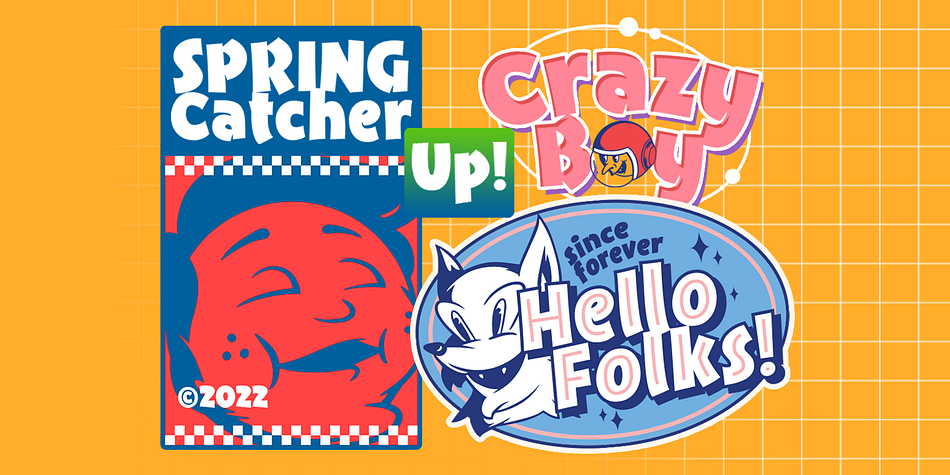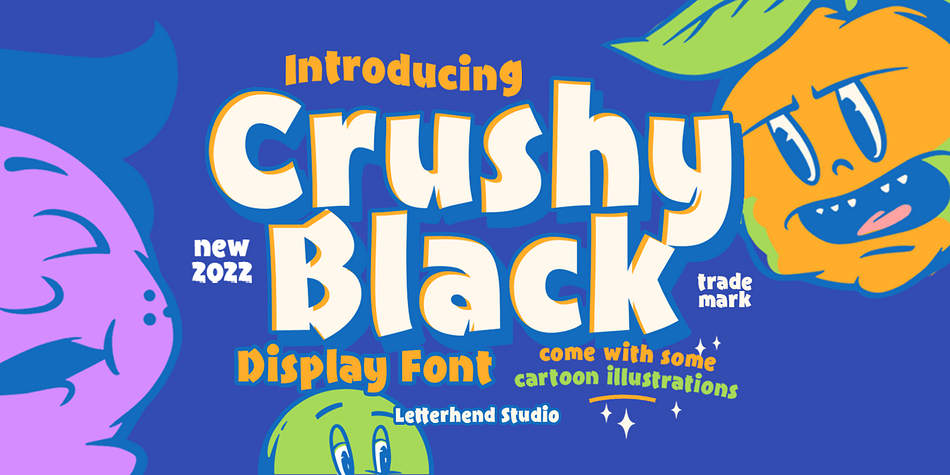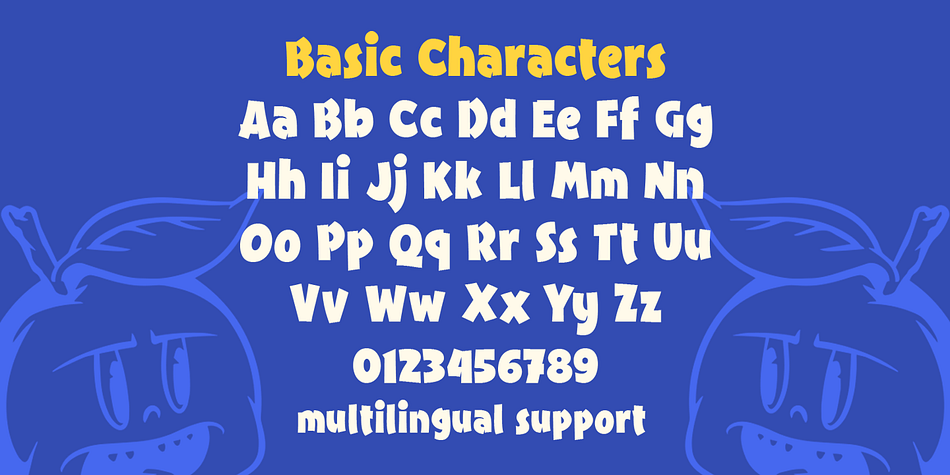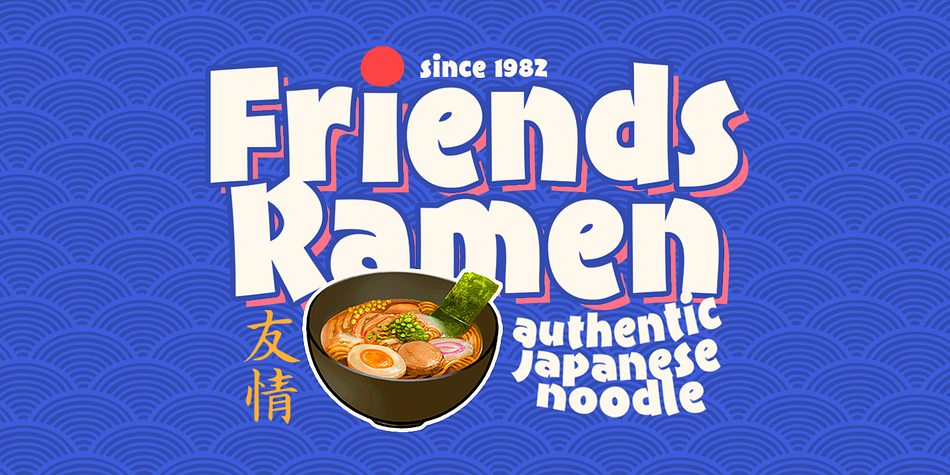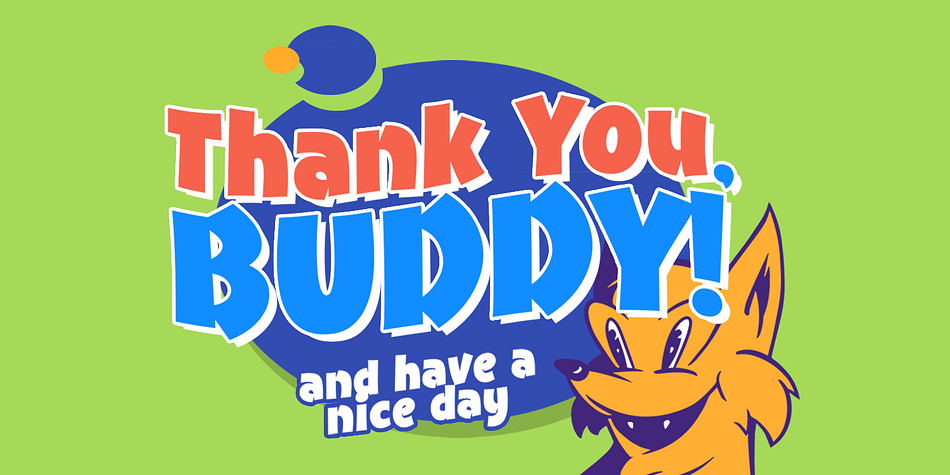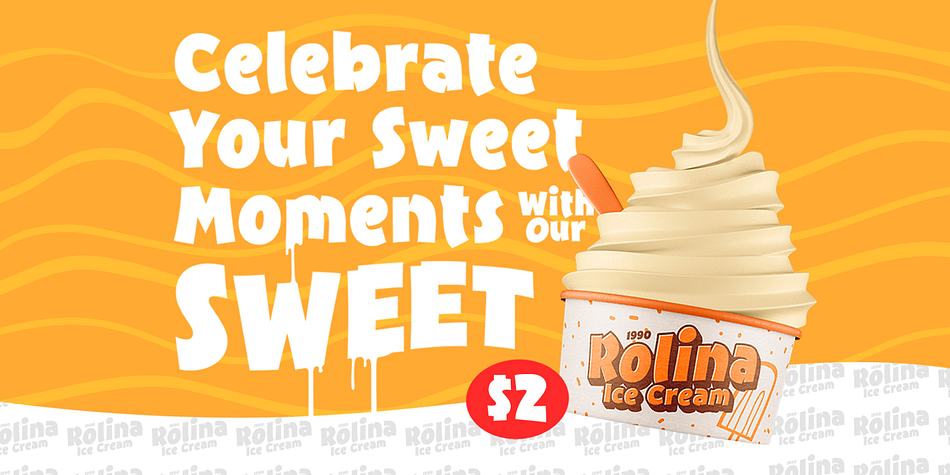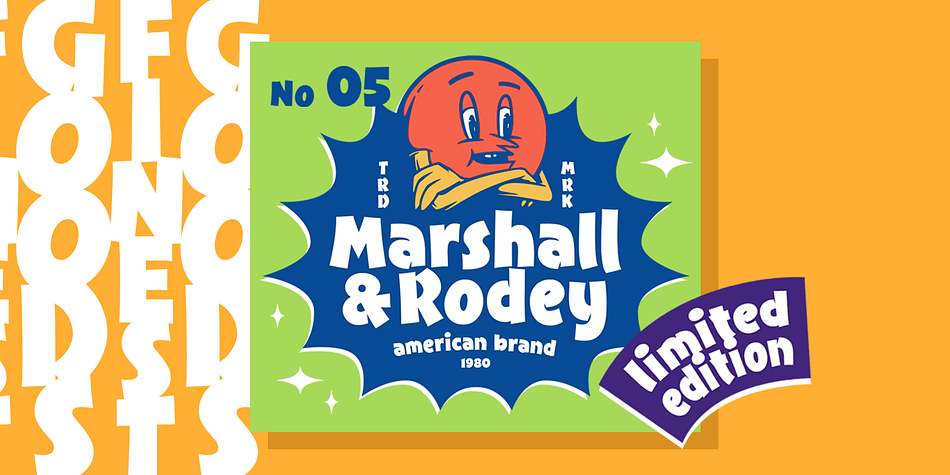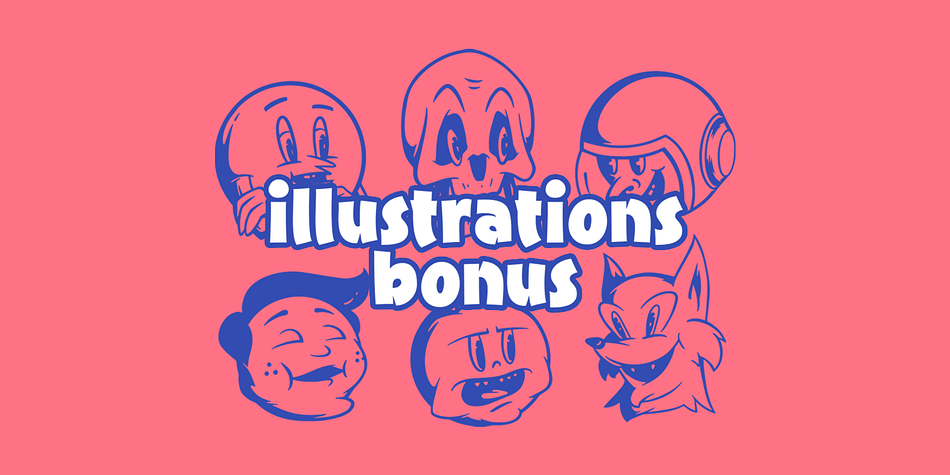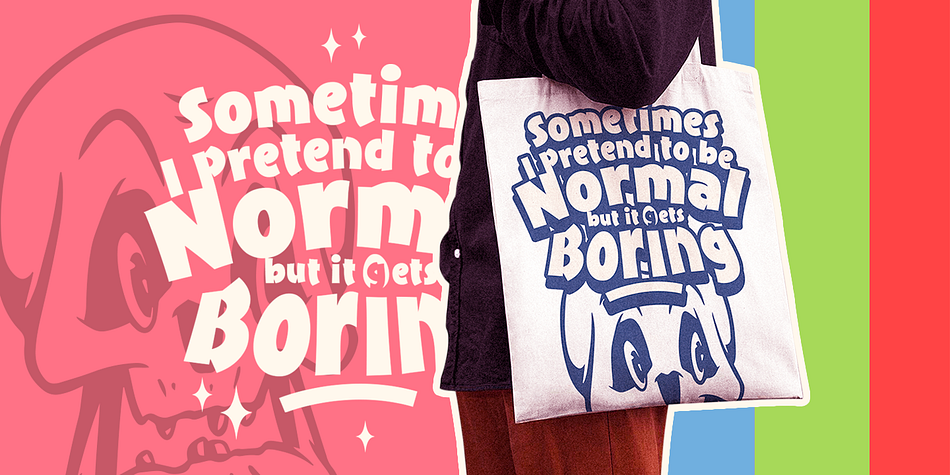
Designed by Hendry Juanda, Crushy Black is a display sans font family published by Letterhend Studio.
Crushy Blacky is a bold typeface with fun and playful looks. it comes with cartoon bonus illustration. This type of font perfectly made to be applied especially in storybook children or child theme which is need a standout font, and the other various formal forms such as invitations, labels, logos, magazines, books, greeting / wedding cards, packaging, fashion, make up, stationery, novels, labels or any type of advertising purpose.
- ligatures
- Free retro cartoon illustration